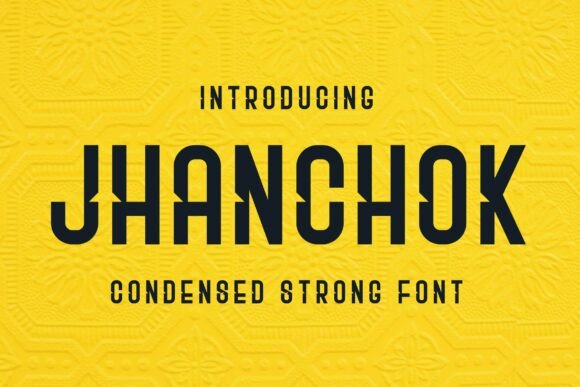
Jhanchok Font: The Bold and Expressive Sans Serif Font for Creatives
In the world of typography, fonts play a crucial role in conveying messages, expressing emotions, and creating visual identities. For creatives who dare to be different, Jhanchok Font is a game-changer. This bold and expressive sans serif font breaks the rules with confidence, blending geometric structure with unexpected forms to create a unique voice for branding, editorial layouts, posters, experimental graphics, and visual identities.
The Birth of Jhanchok Font
Jhanchok Font is designed for creatives who are not afraid to push boundaries. Its unique design combines geometric structure with unexpected forms, making it perfect for those who want to add a touch of personality to their work. The font’s sans serif design gives it a clean and modern look, while its bold and expressive features make it stand out from the crowd.
Key Features of Jhanchok Font
- Bold and Expressive: Jhanchok Font is designed to make a statement. Its bold and expressive features make it perfect for headlines, titles, and other attention-grabbing elements.
- Geometric Structure: The font’s geometric structure gives it a clean and modern look, making it perfect for branding, editorial layouts, and other design applications.
- Unexpected Forms: Jhanchok Font’s unexpected forms add a touch of personality to the font, making it stand out from more traditional sans serif fonts.
- Versatile: The font is versatile and can be used for a wide range of design applications, including posters, experimental graphics, and visual identities.
What Makes Jhanchok Font Unique?
Jhanchok Font is not just another sans serif font. Its unique design and features make it stand out from the crowd. Here are a few things that make Jhanchok Font unique:
- Unconventional Design: Jhanchok Font’s design is unconventional and bold, making it perfect for creatives who want to push boundaries.
- Emotional Connection: The font’s expressive features create an emotional connection with the reader, making it perfect for designs that require a personal touch.
- Flexibility: Jhanchok Font is flexible and can be used for a wide range of design applications, from branding to editorial layouts.
How to Use Jhanchok Font
Jhanchok Font is perfect for creatives who want to add a touch of personality to their work. Here are a few ways to use Jhanchok Font:
- Branding: Use Jhanchok Font to create a unique visual identity for your brand. Its bold and expressive features make it perfect for logos, business cards, and other branding materials.
- Editorial Layouts: Jhanchok Font is perfect for editorial layouts, including magazines, newspapers, and books. Its clean and modern design makes it easy to read, while its bold and expressive features add visual interest.
- Posters: Use Jhanchok Font to create eye-catching posters that grab attention. Its bold and expressive features make it perfect for headlines and titles.
- Experimental Graphics: Jhanchok Font is perfect for experimental graphics, including animations, videos, and interactive designs. Its unique design and features make it stand out from more traditional fonts.
Tips for Using Jhanchok Font
Here are a few tips for using Jhanchok Font:
- Use it Sparingly: Jhanchok Font is bold and expressive, so use it sparingly to avoid overwhelming the reader.
- Pair it with Other Fonts: Jhanchok Font pairs well with other fonts, including serif fonts and script fonts. Experiment with different pairings to find the one that works best for your design.
- Experiment with Colors: Jhanchok Font looks great in a variety of colors, from bold and bright to muted and subtle. Experiment with different colors to find the one that works best for your design.
Jhanchok Font is a bold and expressive sans serif font that breaks the rules with confidence. Its unique design and features make it perfect for creatives who dare to be different. With its geometric structure, unexpected forms, and versatile design, Jhanchok Font is perfect for a wide range of design applications, from branding to editorial layouts. Whether you’re a graphic designer, a typographer, or a creative looking for a unique voice, Jhanchok Font is a great choice.
- What is Jhanchok Font? Jhanchok Font is a bold and expressive sans serif font that breaks the rules with confidence.
- What makes Jhanchok Font unique? Jhanchok Font’s unique design and features, including its geometric structure and unexpected forms, make it stand out from more traditional sans serif fonts.
- What can I use Jhanchok Font for? Jhanchok Font is perfect for a wide range of design applications, including branding, editorial layouts, posters, experimental graphics, and visual identities.
- Is Jhanchok Font easy to read? Yes, Jhanchok Font is easy to read, thanks to its clean and modern design.